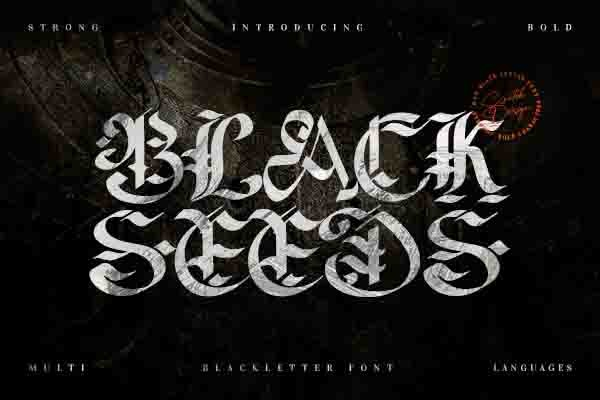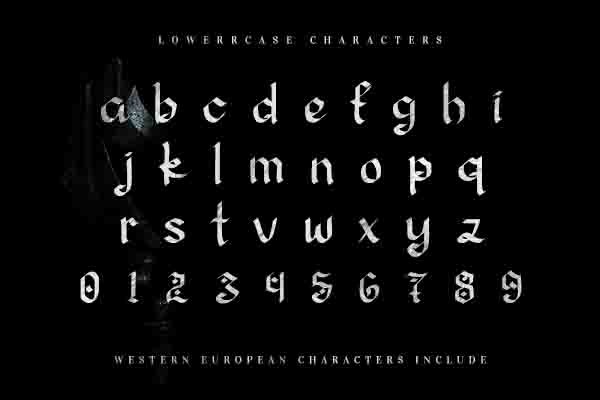
About Blackseeds Font
Blackseeds is a cool, bold and vintage styled blackletter font. This font is neatly crafted and highly detailed. Whatever the topic, Blackseeds will be a wonderful asset to your font library, as it has the potential to enhance any creation.